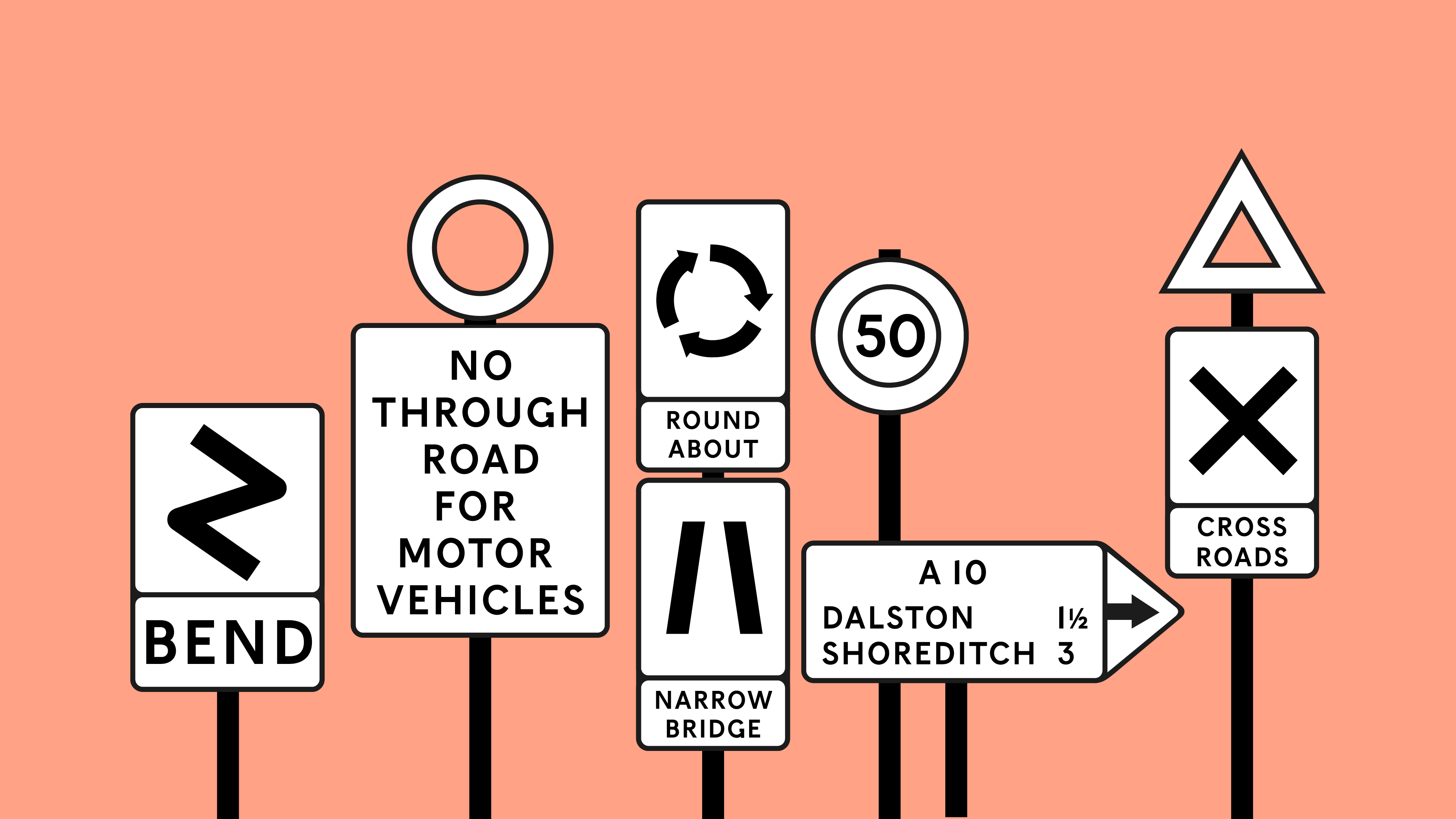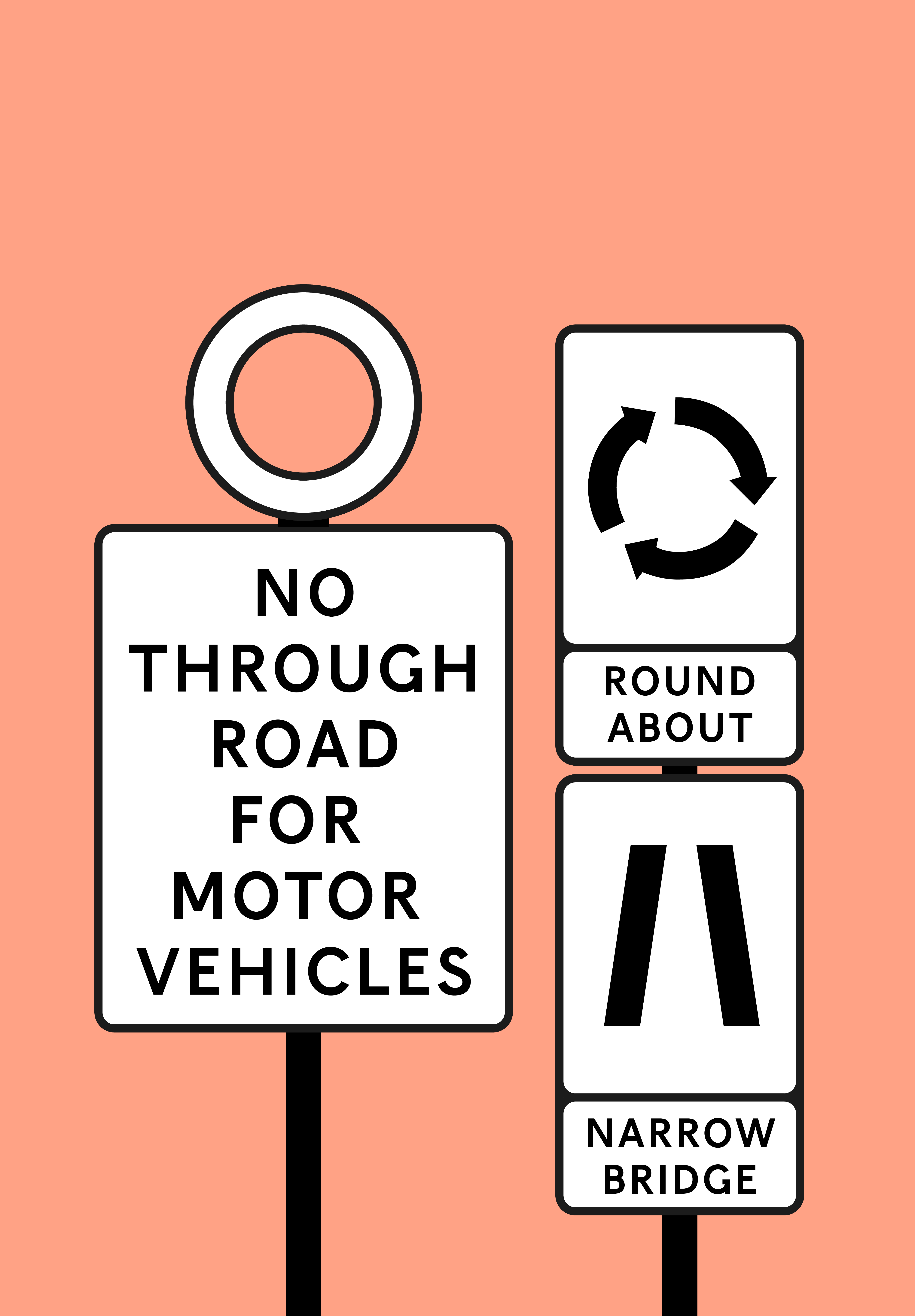
F37 Beckett®
F37 Beckett pays homage to the British Ministry of Transport’s 1933 alphabet. This somewhat idiosyncratic font was used on what are now called ‘pre-Worboys’ road signs.
The British Ministry of Transport’s 1933 alphabet.
The Worboys Committee was formed by the British government in July 1963 to review signage on all British roads. This was in response to two articles published in 1961 by graphic designer Herbert Spencer, illustrating the shortcomings of non-motorway British road signs. The committee was chaired by Sir Walter Worboys of ICI. T. G. Usborne of the Ministry of Transport had charge of proceedings, and Jock Kinneir and his assistant (and later business partner) Margaret Calvert were commissioned as designers.